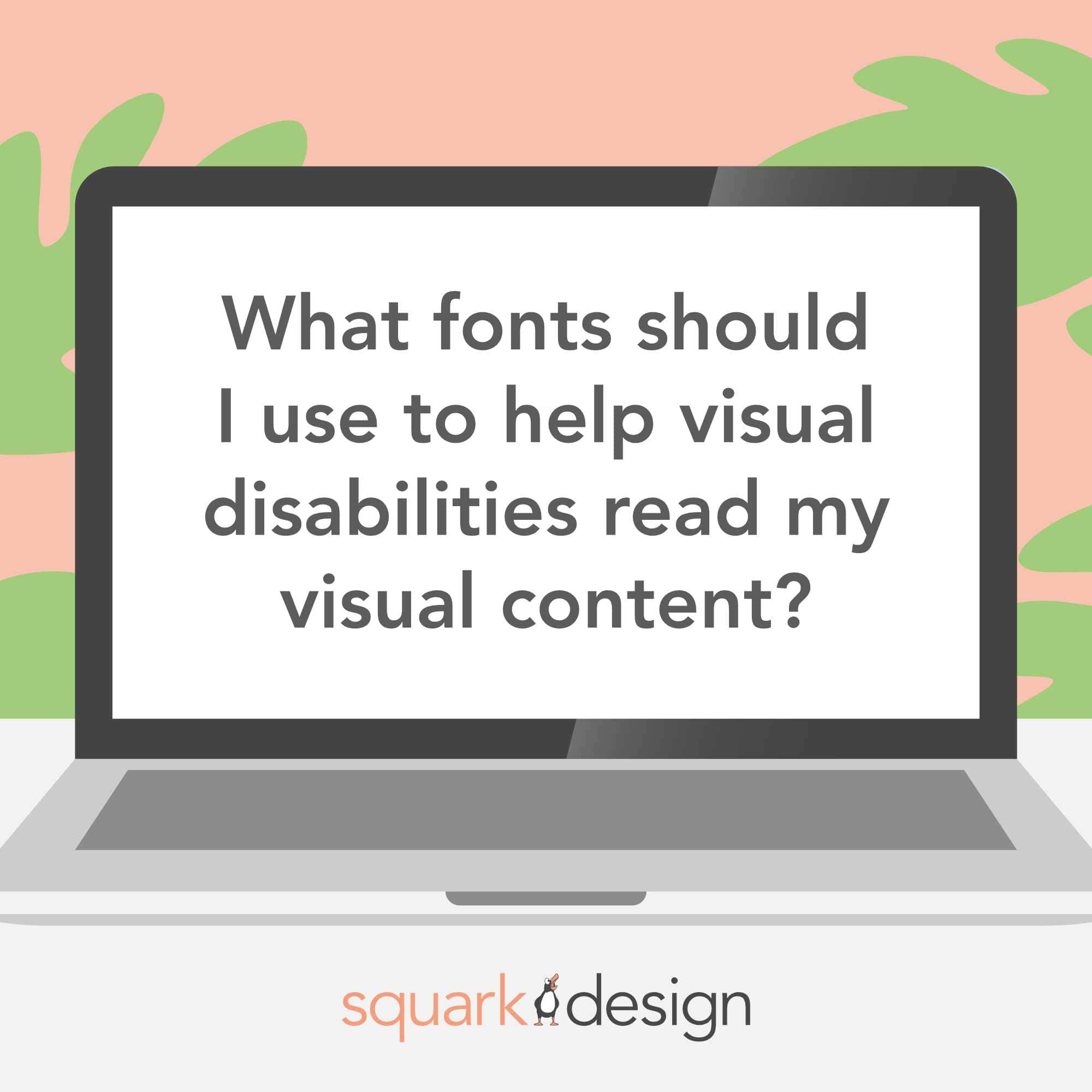
Best Font For Reading Disabilities . However, fonts like arial and helvetica are widely recognized for their clarity and legibility, making them. There are many different font types that can make reading easier for people with dyslexia, such as sans serif, monospacing, and. Choosing an accessible font goes a long way in enabling people with certain disabilities to access content appearing on your. The best font for readability often depends on the context and medium. Find the best fonts for dyslexia, including standard choices like arial and special fonts created for those who have dyslexia. Explore the best fonts for accessibility in our guide, offering tips on readability, ada/wcag compliance, and making. Explore the best fonts for dyslexia, enhancing readability and accessibility. Reading with dyslexia can be challenging, particularly when complicated fonts are involved. Discover how typography can transform digital inclusivity.
There are many different font types that can make reading easier for people with dyslexia, such as sans serif, monospacing, and. Explore the best fonts for accessibility in our guide, offering tips on readability, ada/wcag compliance, and making. However, fonts like arial and helvetica are widely recognized for their clarity and legibility, making them. Find the best fonts for dyslexia, including standard choices like arial and special fonts created for those who have dyslexia. Discover how typography can transform digital inclusivity. Choosing an accessible font goes a long way in enabling people with certain disabilities to access content appearing on your. Explore the best fonts for dyslexia, enhancing readability and accessibility. Reading with dyslexia can be challenging, particularly when complicated fonts are involved. The best font for readability often depends on the context and medium.
Best Font For Reading Disabilities Discover how typography can transform digital inclusivity. However, fonts like arial and helvetica are widely recognized for their clarity and legibility, making them. Explore the best fonts for accessibility in our guide, offering tips on readability, ada/wcag compliance, and making. Discover how typography can transform digital inclusivity. Find the best fonts for dyslexia, including standard choices like arial and special fonts created for those who have dyslexia. There are many different font types that can make reading easier for people with dyslexia, such as sans serif, monospacing, and. Explore the best fonts for dyslexia, enhancing readability and accessibility. Reading with dyslexia can be challenging, particularly when complicated fonts are involved. The best font for readability often depends on the context and medium. Choosing an accessible font goes a long way in enabling people with certain disabilities to access content appearing on your.
15+ Best Fonts for Reading in 2021 Free and Premium Fo MasterBundles Best Font For Reading Disabilities However, fonts like arial and helvetica are widely recognized for their clarity and legibility, making them. Choosing an accessible font goes a long way in enabling people with certain disabilities to access content appearing on your. Discover how typography can transform digital inclusivity. The best font for readability often depends on the context and medium. Explore the best fonts for. Best Font For Reading Disabilities.
Best Fonts for Reading Top 10. Introduction by TypeType Team Medium Best Font For Reading Disabilities There are many different font types that can make reading easier for people with dyslexia, such as sans serif, monospacing, and. Discover how typography can transform digital inclusivity. Explore the best fonts for dyslexia, enhancing readability and accessibility. However, fonts like arial and helvetica are widely recognized for their clarity and legibility, making them. The best font for readability often. Best Font For Reading Disabilities.
Pin on CVI Best Font For Reading Disabilities The best font for readability often depends on the context and medium. There are many different font types that can make reading easier for people with dyslexia, such as sans serif, monospacing, and. Explore the best fonts for accessibility in our guide, offering tips on readability, ada/wcag compliance, and making. Explore the best fonts for dyslexia, enhancing readability and accessibility.. Best Font For Reading Disabilities.
Best Font For Reading Documents at Kayla Nguyen blog Best Font For Reading Disabilities Find the best fonts for dyslexia, including standard choices like arial and special fonts created for those who have dyslexia. Discover how typography can transform digital inclusivity. Choosing an accessible font goes a long way in enabling people with certain disabilities to access content appearing on your. However, fonts like arial and helvetica are widely recognized for their clarity and. Best Font For Reading Disabilities.
Accessible Font Version 4 Effective teaching, Reading difficulties Best Font For Reading Disabilities There are many different font types that can make reading easier for people with dyslexia, such as sans serif, monospacing, and. Choosing an accessible font goes a long way in enabling people with certain disabilities to access content appearing on your. The best font for readability often depends on the context and medium. Reading with dyslexia can be challenging, particularly. Best Font For Reading Disabilities.
Best Fonts for Online Reading and Books The Most EasyToRead Fonts Best Font For Reading Disabilities Find the best fonts for dyslexia, including standard choices like arial and special fonts created for those who have dyslexia. There are many different font types that can make reading easier for people with dyslexia, such as sans serif, monospacing, and. Choosing an accessible font goes a long way in enabling people with certain disabilities to access content appearing on. Best Font For Reading Disabilities.
The Dyslexie Font Best Font For Reading Disabilities There are many different font types that can make reading easier for people with dyslexia, such as sans serif, monospacing, and. The best font for readability often depends on the context and medium. However, fonts like arial and helvetica are widely recognized for their clarity and legibility, making them. Discover how typography can transform digital inclusivity. Explore the best fonts. Best Font For Reading Disabilities.
Disability Font by Roronoa zoro.S.P.D · Creative Fabrica Best Font For Reading Disabilities Reading with dyslexia can be challenging, particularly when complicated fonts are involved. Explore the best fonts for dyslexia, enhancing readability and accessibility. There are many different font types that can make reading easier for people with dyslexia, such as sans serif, monospacing, and. Discover how typography can transform digital inclusivity. However, fonts like arial and helvetica are widely recognized for. Best Font For Reading Disabilities.